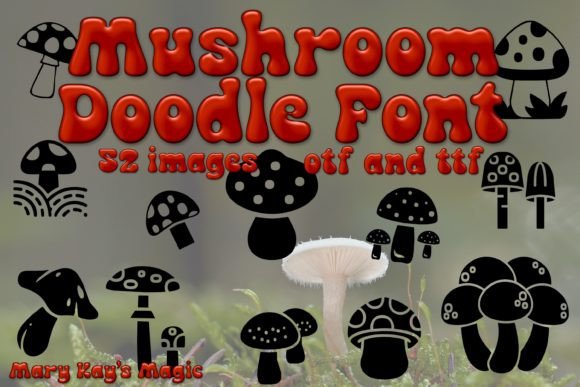
Looking for a font style that's perfect for invitations? Look no further than Mushroom Doodles! This unique and sweet dingbats font is exactly what you need to make your invitations stand out from the crowd.
Created by Mary Kay's Magic, Mushroom Doodles is a font family that will give your designs an uncommon style that is sure to be noticed. With its distinctive and eye-catching design, this font is perfect for anyone looking to add a touch of whimsy to their projects.
What sets Mushroom Doodles apart from other dingbats fonts is its sweet and charming style. It's a font that's perfect for adding a touch of personality to your invitations, making them more memorable and engaging.
So if you're looking for a font that will elevate your designs and make them truly unique, look no further than Mushroom Doodles. With its captivating style and unique features, this font is sure to be a hit with anyone looking to add a touch of creativity and personality to their projects.